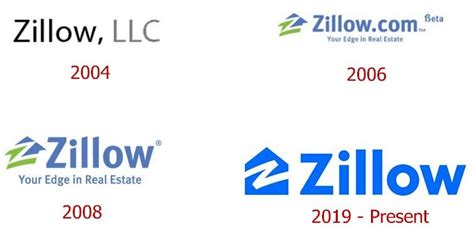
Unveiling The Iconic Zillow Logo Font: A Deep Dive
Hey there, design enthusiasts! Ever wondered about the Zillow logo font ? You see it everywhere – on websites, apps, and even those real estate signs that pop up on every corner. It’s clean, modern, and instantly recognizable. Today, we’re going to dive deep into the world of the Zillow logo font, explore its origins, and understand why it’s so effective. Get ready to geek out with me on typography! Let’s get started, guys!
The Zillow Logo Font: What’s the Deal?
So, what exactly is the Zillow logo font ? Well, the font used in the Zillow logo is a variation of Gotham , a widely popular geometric sans-serif font created by Tobias Frere-Jones. Gotham is known for its clean lines, simple shapes, and a contemporary feel. The Zillow logo font, although based on Gotham, is customized to have a unique touch. The typeface has become synonymous with the brand, instantly recognizable by millions. The choice of font says a lot about a brand, doesn’t it? It communicates the brand’s personality, values, and even its target audience. Zillow, as a real estate platform, wanted a font that reflected its modern, trustworthy, and user-friendly approach. It needed to be legible, even in small sizes, and project an image of reliability. That’s why the font choice is Gotham, and even the slight alterations made to it, were crucial. The Zillow logo font isn’t just a random pick; it’s a carefully considered element of the brand’s identity, speaking volumes about what the company stands for. The font is very clear to read. It’s a very simple and clean font that works well for a brand that is all about making things simple and easy for its customers. The font plays a significant role in creating a brand identity. It adds personality to the brand, helps create a memorable image, and it also conveys the company’s values and messages. Zillow is one of the top companies in the real estate market. Its services are user-friendly, providing easy access to information for people. The Zillow logo font is a great example of how a well-chosen font can contribute to a brand’s overall success.
Why Gotham? Why the Customization?
Why did Zillow choose Gotham, and why did they decide to customize it? Gotham’s inherent qualities make it a perfect fit. First off, its geometric design gives it a modern, clean look that resonates with the digital age. Then, it’s incredibly versatile. It works well in various applications, from website headlines to print materials, and the font is super readable. The custom touches give the logo a unique personality. These subtle modifications make the Zillow logo stand out. These small tweaks, whether it’s adjusting the letter spacing, slightly modifying the letterforms, or incorporating custom glyphs, create a unique identity for the brand. It shows how even the tiniest details can make a significant difference. It’s like adding your own special sauce to a recipe. While the core of the font is Gotham, the customizations ensure that the Zillow logo is instantly identifiable. These design choices ensure that the logo represents the brand. Zillow’s brand is all about innovation, transparency, and ease of use, all of which are reflected in the font’s appearance. The font is an essential part of the brand’s visual identity. The logo font choice is a strategic decision that plays a crucial role in building brand recognition. The custom version distinguishes it from other brands that use Gotham. The logo’s simple and modern design reflects Zillow’s commitment to providing a user-friendly experience.
Deep Dive: Characteristics of the Zillow Logo Font
Alright, let’s get into the nitty-gritty and examine the characteristics that make the Zillow logo font so effective. The primary feature, as mentioned, is its geometric sans-serif nature. This means the letters are based on simple geometric shapes, like circles and squares, without the decorative serifs found in some other fonts. This geometric design gives the font a modern and clean aesthetic. The font emphasizes simplicity. Another key characteristic is the font’s excellent readability. Legibility is crucial, especially for a brand like Zillow. The font needs to be clear and easy to read, whether on a website, app, or print ad. The font’s consistent stroke weight also helps improve readability. It ensures that the letters have a uniform thickness, making them easy on the eyes. The spacing between the letters is another important aspect. Proper spacing prevents the letters from feeling cramped or too spread out. The careful attention to spacing helps in maintaining readability. The kerning, or the space between specific letter pairs, is also carefully considered. All these elements combined make the Zillow logo font super user-friendly. The font’s design ensures that the logo is instantly recognizable and easily understood. The selection shows how much thought was put into this.
Comparing with Gotham
How does the Zillow logo font compare to the original Gotham? While the foundation is the same, there are subtle differences. These customizations set the Zillow logo apart. The modifications ensure that the font is unique. These modifications contribute to brand recognition. Subtle changes can make a big difference. It’s like tweaking a recipe to make it your own. These adjustments are usually very slight. The designers might have altered the weight of some of the letterforms, adjusted the spacing, or fine-tuned the curves to create a unique look. Those little tweaks are super important. The changes are very important for branding. These changes give the logo a distinct personality. It also makes the Zillow logo stand out. It helps to differentiate the brand from others. The subtle differences make the logo unique. These changes make a huge difference in creating a brand’s identity. The designers made sure the logo stood out, and the small tweaks made all the difference.
The Impact of Typography on Branding
Let’s talk about the big picture here – the impact of typography on branding. The font you choose for your logo isn’t just about aesthetics; it’s a powerful tool for communication. It influences how people perceive your brand. Typography plays a significant role in shaping a brand’s image. The font helps set the tone for the brand. For example, a serif font might convey tradition and elegance. A sans-serif font, like Gotham, signals modernity and simplicity. The Zillow logo font’s clean and contemporary appearance reflects the brand’s focus on user-friendliness and innovation. A well-chosen font can boost a brand’s visibility. It makes a brand recognizable and memorable. The consistency of using the same font across all marketing materials helps reinforce the brand identity. The choice of font is an important component of the brand’s identity. The use of a font can create a strong emotional connection with the target audience. The font conveys the values of the brand. This can lead to building trust and loyalty among customers. If the font resonates with its target audience, it can enhance customer engagement and boost brand equity. The Zillow logo font is a great example of how a well-considered font choice can contribute to a brand’s success. It showcases the impact of typography on the overall brand image. It helps to establish a consistent visual identity that reinforces the brand’s values and messages.
The Psychology of Fonts
There’s a fascinating side to fonts – the psychology behind them. Different fonts evoke different emotions and associations. This is why choosing the right font is so important. Typography has the power to convey a brand’s personality and values. Fonts are linked with psychological associations. These feelings influence how people perceive a brand. The fonts impact their purchase decisions. The font conveys a brand’s personality. This influences the way a brand is perceived by its customers. The shape and design of the letters can impact how people see it. The use of a font can trigger different emotional responses. It’s like choosing the right outfit to match your mood. A geometric sans-serif font like Gotham, for instance, often conveys a sense of modernity, trust, and efficiency. On the other hand, fonts with curves and serifs can express a sense of creativity, elegance, or tradition. By picking the font carefully, you can influence how people feel about your brand. It helps in creating a connection with your target audience. You can influence their perception of your brand. Understanding the psychology of fonts helps in making better design choices. The fonts can convey different moods, making the brand more engaging. Zillow’s choice of the logo font suggests trust and user-friendliness. The brand wants people to feel confident and secure. It’s an important part of branding.
Key Takeaways: Zillow Logo Font
So, what are the key takeaways about the Zillow logo font ? Here’s a quick rundown:
• The Zillow logo font is based on Gotham, a geometric sans-serif font. The choice reflects modernity and user-friendliness. It’s a key part of their brand. The logo is very recognizable, and the font is part of that.
• It has been customized to give it a unique personality. These customizations enhance brand recognition.
• The font is highly legible and adaptable. The font works in a variety of uses, and it makes it easy to read.
• The choice of font plays a crucial role in shaping Zillow’s brand identity. It also reflects its values of trust and transparency.
• Typography is a powerful tool for communication and branding. It’s important to understand the psychology behind fonts. The font choice helps to connect with the target audience.